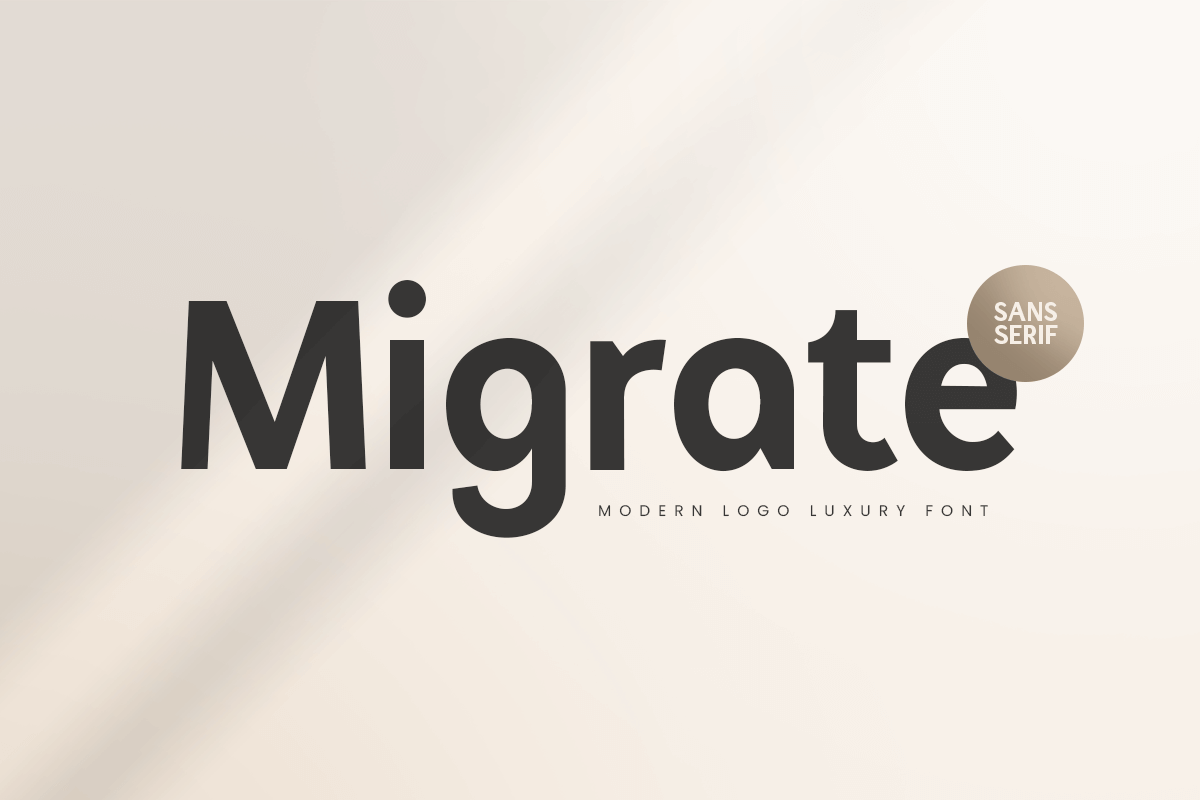
Migrate
A Modern Professional Logo Font that special for logo, branding, poster, headline and any project that we created special for Professional and Modern branding needs that will give you more Unique look, with unique shape will be ready to add value of your brand. It so nice to leverage designer or product owner that need solutions to make their design look more Professional and modern. And specially for this font, We prepared any unique characters to help you create unlimited variations for your creative needs.